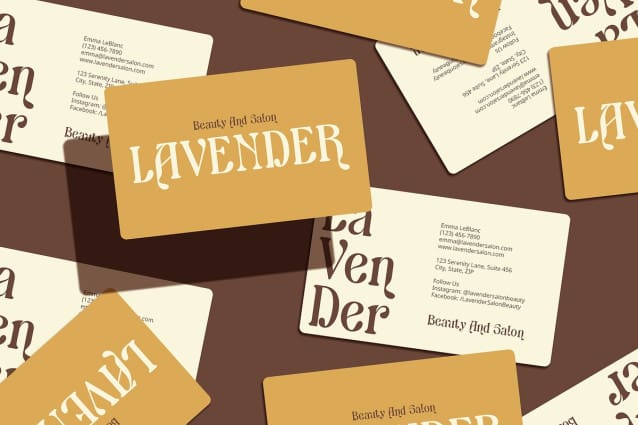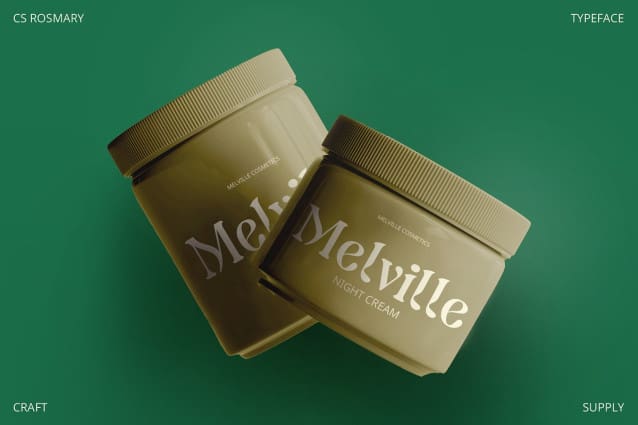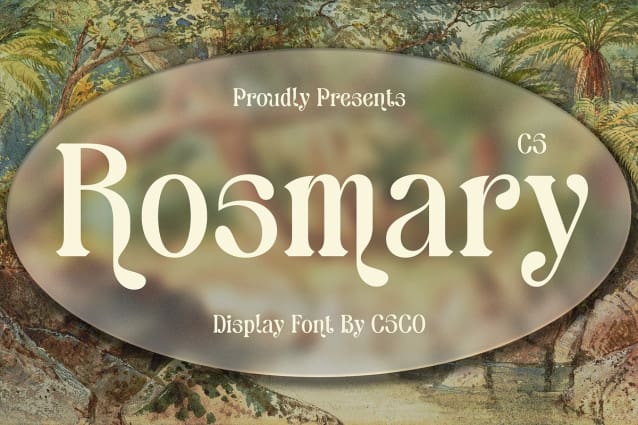
CS Rosmary Font
CS Rosmary Font is a modern serif font that artfully blends traditional design elements with the graceful aesthetics of the Art Nouveau movement. Its letterforms are adorned with elegant, flowing curves and intricate floral or decorative ornaments, capturing the essence of this artistic era. The smooth and ornate serifs contribute to a refined and sophisticated appearance, making the font a perfect choice for projects that demand a touch of classical beauty.
Artistic Flourishes with a Sophisticated Touch Featuring detailed and decorative shapes, CS Rosmary provides a visually rich experience that enhances any design. The Art Nouveau-inspired curves and flourishes add an artistic flair while maintaining a modern sensibility. This combination of elegance and creativity ensures a font that stands out in sophisticated and refined applications.
Ideal for High-End and Elegant Projects Whether you’re working on invitations, luxury branding, or high-end editorial design, CS Rosmary delivers a sophisticated and beautiful appearance. Its detailed and ornate design elements make it suitable for projects that aim to convey both classic charm and artistic grace, ensuring that each piece radiates elegance and style.